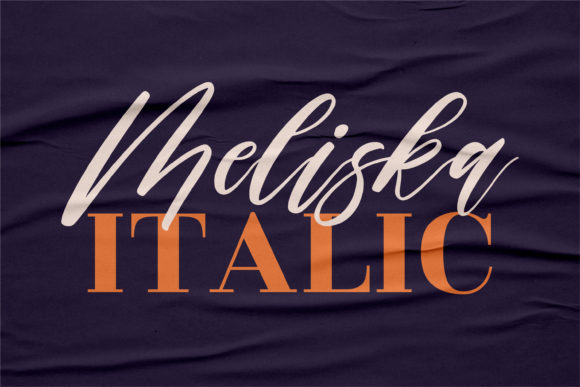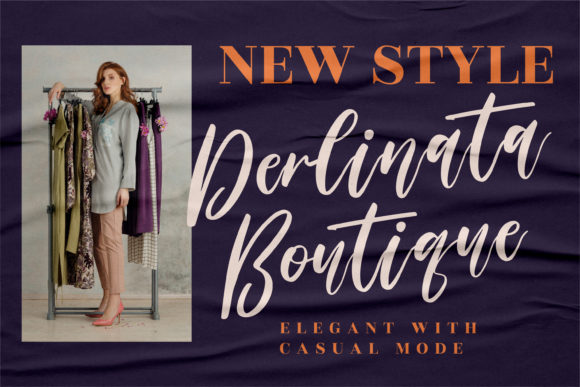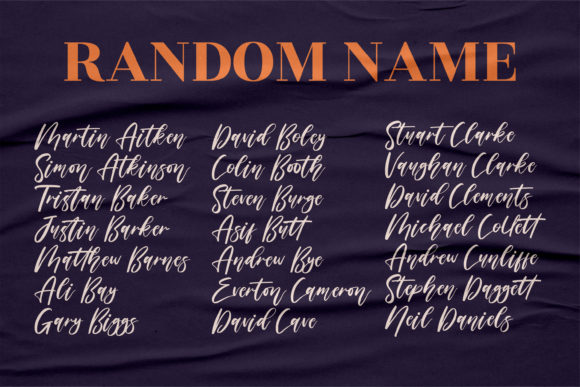
Introduction to Maliska Font
As a designer, there’s nothing quite like the thrill of bringing a creative project to life. You’ve spent hours brainstorming, sketching, and refining your idea, and finally, it’s time to choose the perfect font to give it that extra oomph. That’s where the Maliska Font comes in – a beautiful and refined script font that’s sure to elevate your designs to the next level.
With its classy, elegant, and modern look, the Maliska Font is the perfect choice for logos, branding, invitations, stationery, wedding designs, social media posts, and much more. What’s more, it’s PUA encoded, making it incredibly easy to access all of the amazing glyphs and ligatures at your fingertips. Whether you’re a seasoned designer or just starting out, the Maliska Font is a valuable addition to your design resource arsenal.
Key Features of Maliska Font
- High-quality, professional design suitable for creative projects and designs requiring a sophisticated look.
- Features a modern, elegant design with unique characteristics that set it apart from other fonts.
- Designed to be highly legible, even at small font sizes, making it ideal for a variety of design applications.
Honest Review: Maliska Font
I recently had the chance to work with the Maliska Font, and I must say it’s been a game-changer for my creative projects. This free download has been a design resource that I can always count on.
What works well: ✨ The font’s high-quality design is evident in its clean lines and modern aesthetic. It’s perfect for projects that require a touch of sophistication. The transparent background also makes it easy to integrate into various designs. The font’s versatility is another major plus – it can be used for both headings and body text.
Here are some key features that make the Maliska Font stand out:
- High-quality design with clean lines and modern aesthetic
- Perfect for creative projects that require a touch of sophistication
- Can be used for both headings and body text
Limitations: ⚠️ While the Maliska Font is an excellent resource, I did encounter some compatibility issues with certain software. Additionally, the font’s limited character set might not be suitable for projects that require a wide range of characters.
Overall, the Maliska Font is a valuable addition to any designer’s toolkit. Its high-quality design, versatility, and transparent background make it an excellent choice for creative projects. With a little tweaking, I’m sure this font can become an indispensable design resource.
Tips for Getting the Most Out of Maliska Font
For optimal use, pair Maliska Font with a high-contrast background to make the text stand out. Experiment with different font sizes and styles to create visual interest in your design. Maliska Font is a versatile design resource that can be used for a variety of creative projects, from logos to presentations.
Maliska Font is commonly used for branding, marketing materials, and presentations. Its high-quality design and transparent background make it perfect for overlaying text on images or using as a standalone font. Download Maliska Font today and take your design to the next level!